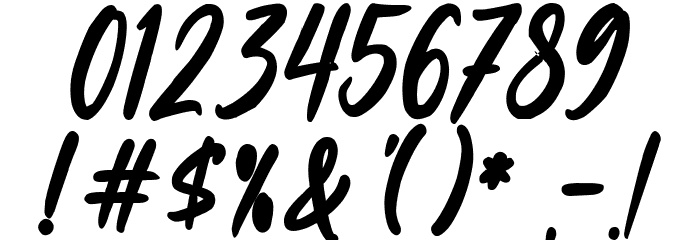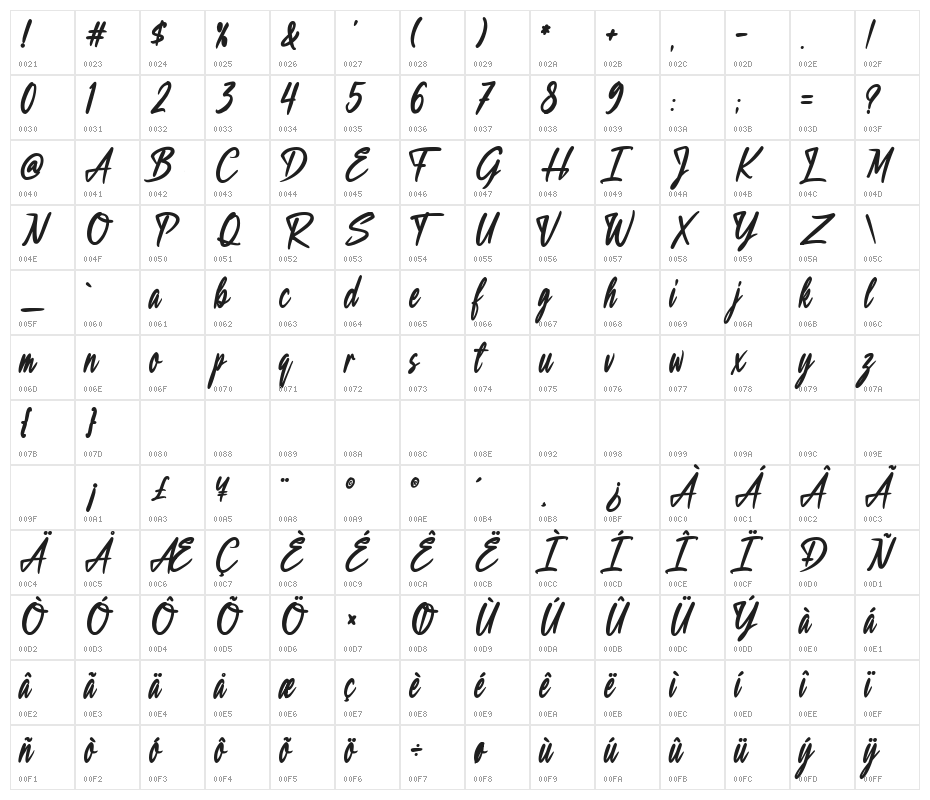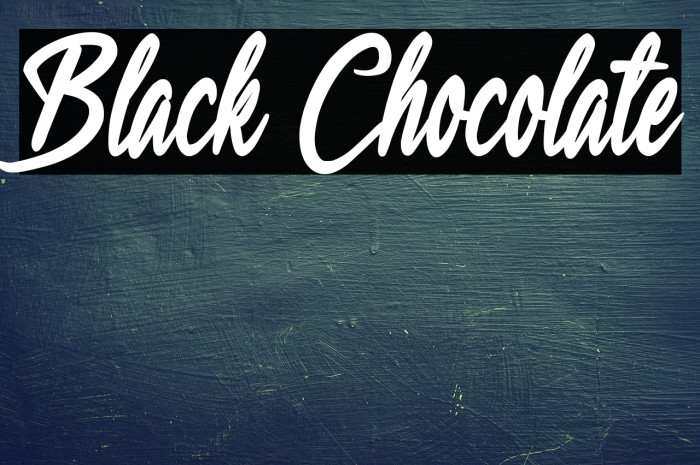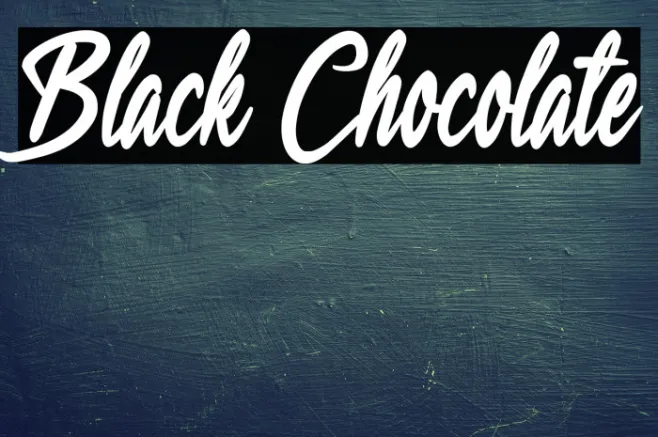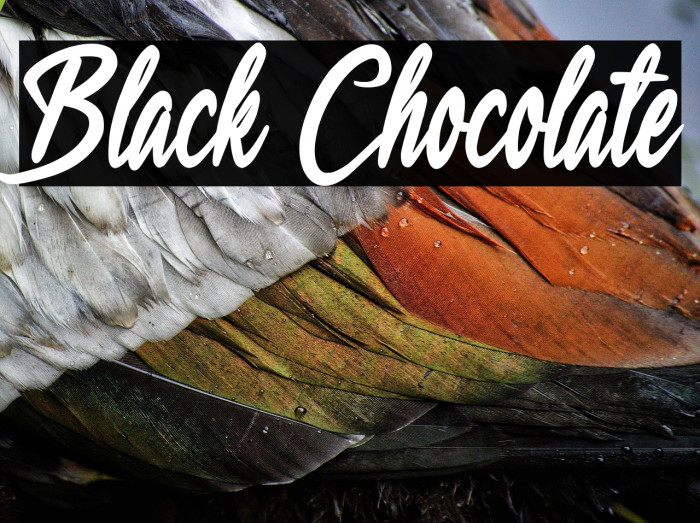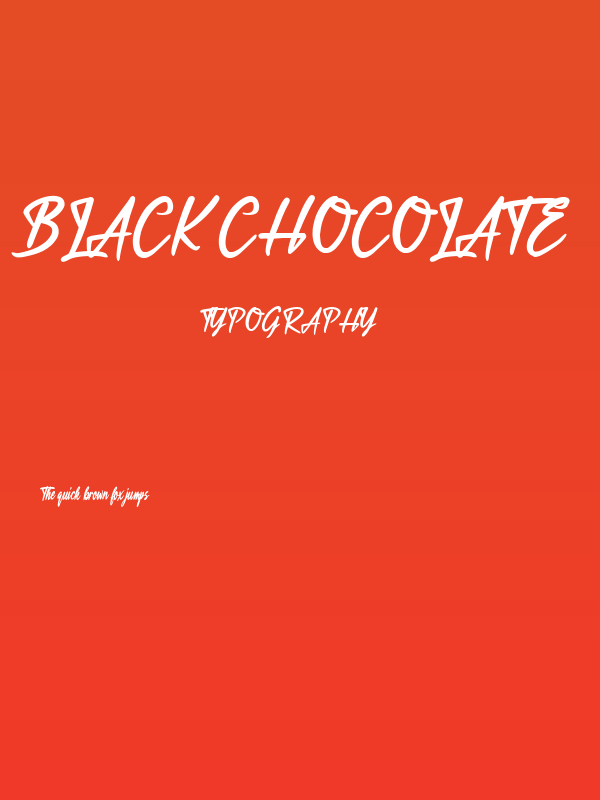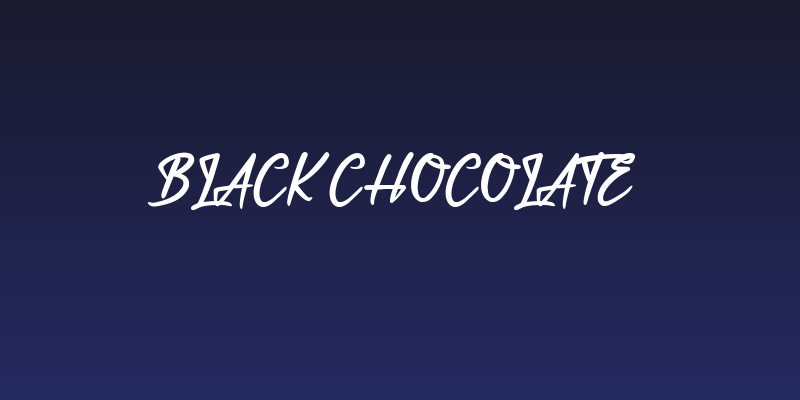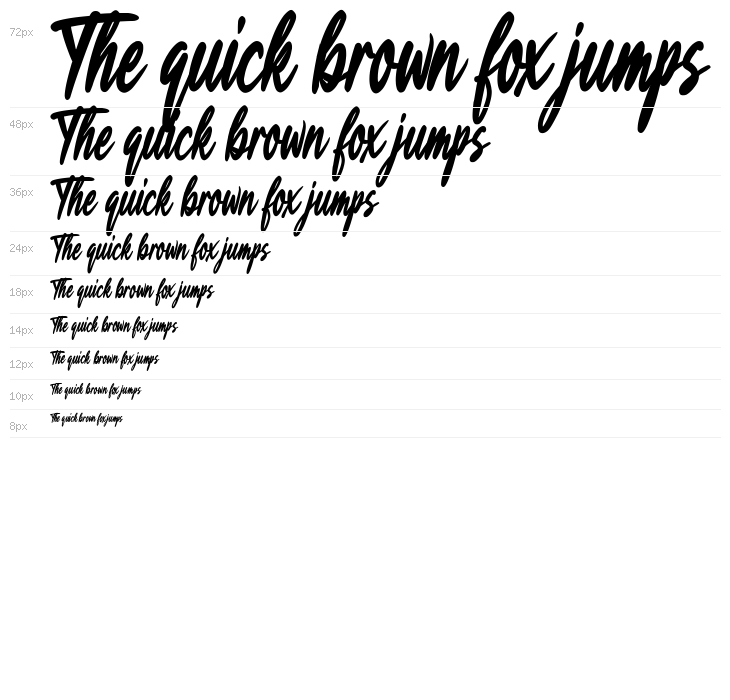
Black Chocolate Font
Black Chocolate Description
This font exudes a dynamic and energetic vibe with its bold, cursive style. The letters are fluid and interconnected, reminiscent of handwritten script, yet they maintain a modern edge. The uppercase letters are slightly more angular, adding a touch of sophistication, while the lowercase letters are smooth and flowing, creating a harmonious balance. The numbers and special characters follow the same stylistic cues, ensuring consistency across all elements. This font's boldness and unique character make it stand out, perfect for projects that require a personal touch or a statement piece.